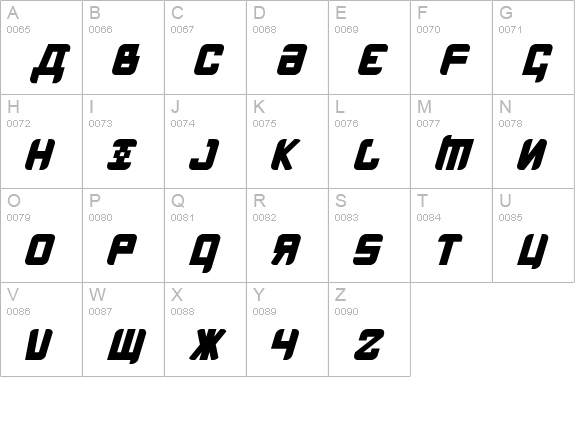
Kremlin Menshevik Bold Italic is a strong, high-contrast, italic variant in the Kremlin typeface family \xE2\x80\x94 well suited to headlines, attention-grabbing titles, and strong calls-to-action.
Introducing the remarkable Kremlin Menshevik Bold Italic font, a stunning typographical masterpiece that combines elegance, sophistication, and modernity. With its bold and italicized design, this font is perfect for adding a touch of boldness and emphasis to your designs, making them truly eye-catching. The Kremlin Menshevik Bold Italic font exudes confidence and authority, making it ideal for a wide range of projects, including branding, editorial design, advertising, and more. Its unique blend of bold strokes and slanted curves creates a harmonious balance, ensuring that your message is conveyed with impact and flair. What sets the Kremlin Menshevik Bold Italic font apart is not only its exceptional design but also its accessibility. This font is freely available to download at FontsMarket.com, allowing you to elevate your creative endeavors without any financial constraints. Whether you are a professional designer or a creative enthusiast, the availability of this font for free ensures that you have the freedom to explore its limitless possibilities. With its extensive character set, the Kremlin Menshevik Bold Italic font supports multiple languages, making it a versatile choice for global projects. Its legibility and readability are second to none, ensuring that your message is communicated effortlessly, regardless of the medium or platform. Immerse yourself in the world of typography with the Kremlin Menshevik Bold Italic font, where boldness meets elegance and creativity knows no bounds. Download it for free at FontsMarket.com and unleash your design potential today.